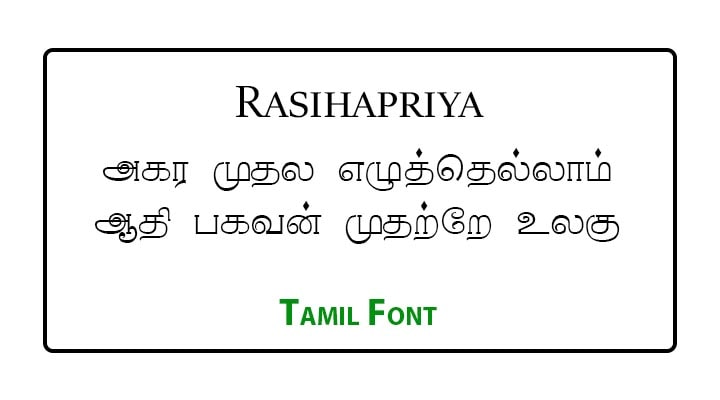
Rasihapriya Tamil Font Free Download. Rasihapriya is one of the Tamil Regular Font. Specially used in publications. Here you can download Font and Keyboard Layout for Free. This font is widely used by Tamil Nadu and Sri Lankan Tamil Peoples. The following font was design and generated by by Fontograpgher 3.5.
Rasihapriya Tamil Font Preview